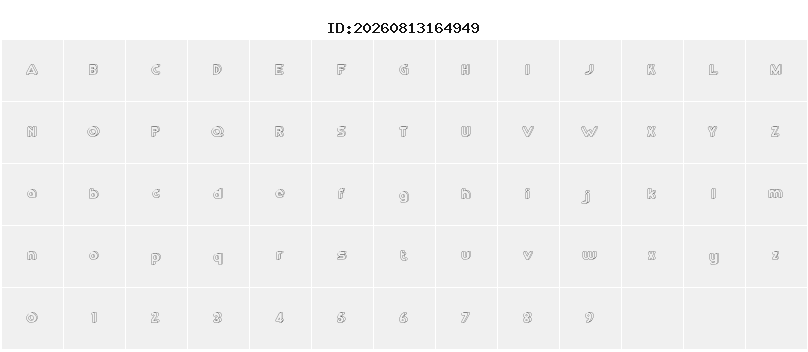
• Font Name: RM Playtime 3D
• Designer: Ray Meadows
• Description: This font was created using FontStruct (http://fontstruct.fontshop.com)
About RM Playtime 3D.ttf
RM Playtime 3D.ttf is a modern, elegant sans-serif font designed for ultimate readability and visual harmony. Perfect for branding, headlines, web design, and print materials.